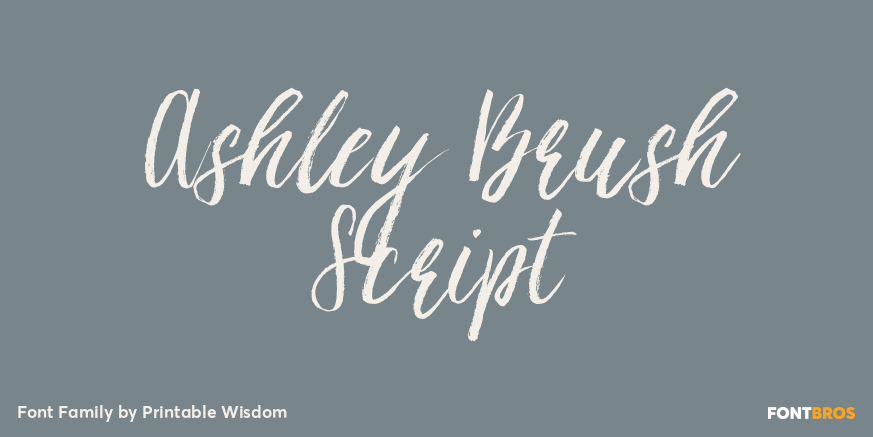
Ashley Brush Script
About Ashley Brush Script
Completely handwritten using watercolors and a calligraphy brush. Rough edges and imperfect lines give this brush lettered font a unique and trendy look. Perfect for wedding invitations, adding design accents, and giving your projects a coveted hand-crafted…